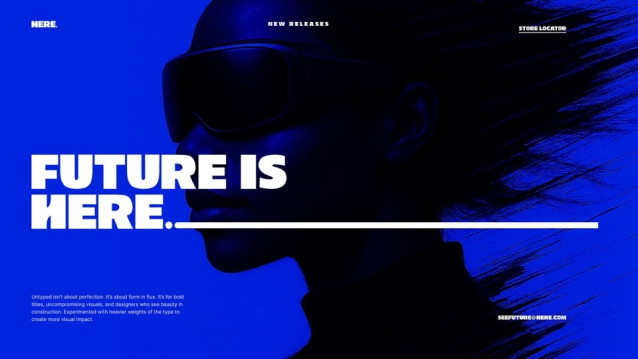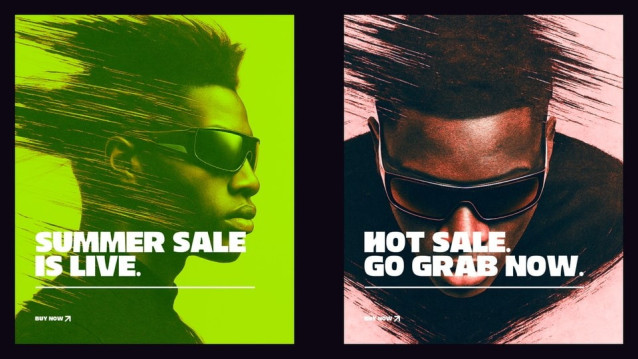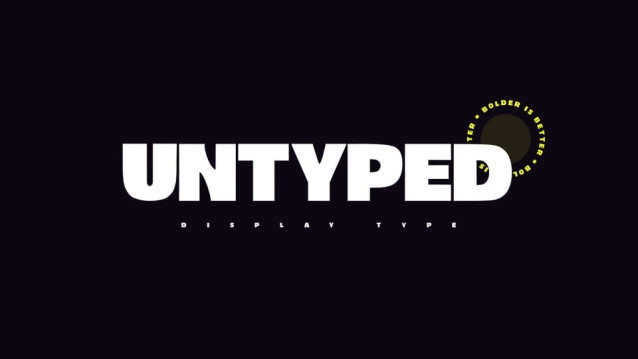
Untyped Font
Untyped Font is a bold, display typeface created as a typographic experiment rooted in structure and minimalism. Designed exclusively for titles, headers, and statement visuals, Untyped features only uppercase letters, numbers & some special characters, stripped to their essential forms.